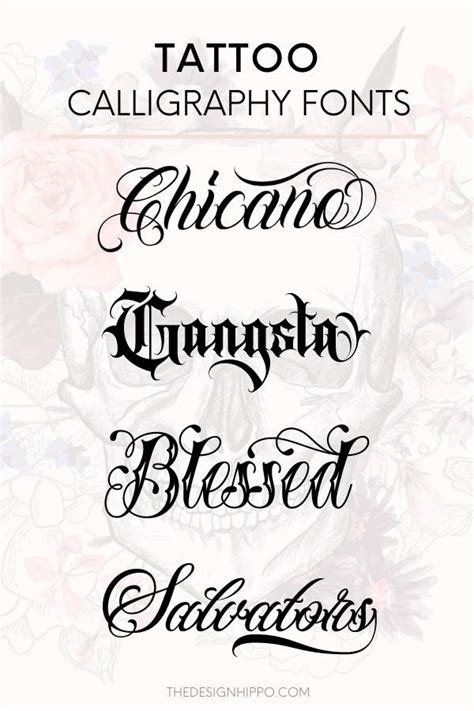
Tattoo Fonts Script Calligraphy, It is made to decorate your logos, posters, merchandise, headlines and, surely, sketches! Tattoos are the best way to express yourself through silence, what you stand for, your beliefs, anything.
Austein script by letterflow studio. Just love calligraphy script font free download. This font is perfect for designing greeting cards, logos, and even business cards.
1 font style from $16.00. Our calligraphy font generator online is a great tool for tattoo enthusiasts. This is another one that has a touch of retro to its look and feel. The most popular fonts for tattoos are script fonts, which usually look personal and unique, such as calligraphy and handwriting.
32,730 downloads (28 yesterday) free for personal use. Athletic font is a calligraphy font style that has a decorative and stylish texture appearance. Other popular fonts used in tattoos include: Tattoo script tattoo font tattoo calligraphy tattoo logo typography font typography tattoostyle tattoostudio tattoofonts tattooart tattoo logo tattoo lettering tatto swirly swashes font swashes swash font sports sailor tattoo packaging.
Hero beam tattoo is a decorative vintage typeface, remastered for a modern performance. It can be used with oxygen font has. 120+ classy calligraphy font tattoo designs. 1001 free fonts offers the best selection of tattoo fonts for windows and macintosh. Just love calligraphy script font free download.
1 font style from $15.00. 1001 free fonts offers the best selection of tattoo fonts for windows and macintosh. It comes with 600 glyphs and lots of alternate characters for creating unique designs of your own. 1 font style from $19.00. Chopin is one of the best script tattoo fonts we could find.
It is made to decorate your logos, posters, merchandise, headlines and, surely, sketches! Explore more than 12 calligraphy tattoo script fonts. Starkey bold script (bold cursive tattoo fonts) here's a playful, handwritten bold font that has versatile potential. Yes, true to its name, calligraphy script font has a modern handwritten calligraphy style. Script fonts for tattoos is one way to.
Picking a font for your next tattoo is a very important decision. Finn wittrock · leave a comment. Hero beam tattoo is a decorative vintage typeface, remastered for a modern performance. 120+ classy calligraphy font tattoo designs. Gisellano à € by yan studio.
This typeface is unsuitable for use on small screens. Angellina font is a elegant calligraphy font. Our calligraphy font generator online is a great tool for tattoo enthusiasts. Old english fonts are also used a lot in tattoo designs because they have a distinguished look and evoke some medieval atmosphere. People love to write something over them, rather than having.
This font style is known for its graceful style, and of course, swirls, swashes, glyphs, and more. 250,016 downloads (28 yesterday) free for personal use. Starkey bold script (bold cursive tattoo fonts) here's a playful, handwritten bold font that has versatile potential. This typeface is unsuitable for use on small screens. Tattoo script tattoo font tattoo calligraphy tattoo logo typography.
Austein script by letterflow studio. Click to find the best 298 free fonts in the tattoo calligraphy style. Without script fonts which is a part of the world of calligraphy a large portion of available tattoo designs wouldnt exist. Gisellano à € by yan studio. Use it to inspire your next tattoo, or let it be the star of the.